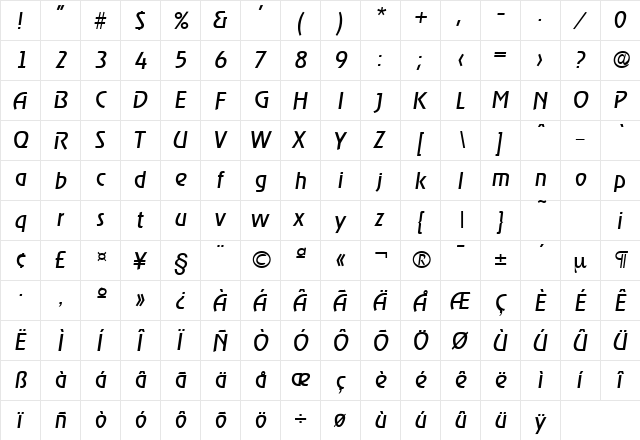
Ragtime-Serial DB RegularItalic
Design Context for Ragtime-Serial DB Typeface
Ragtime-Serial DB takes a measured approach to typography — its balanced proportions and neutral character make it a reliable workhorse for both digital and print work. The slanted form adds forward momentum and visual energy.
Pro Tip: Try Ragtime-Serial DB for annotation and caption copy alongside an upright companion — the contrast in angle creates a dynamic but ordered typographic system.